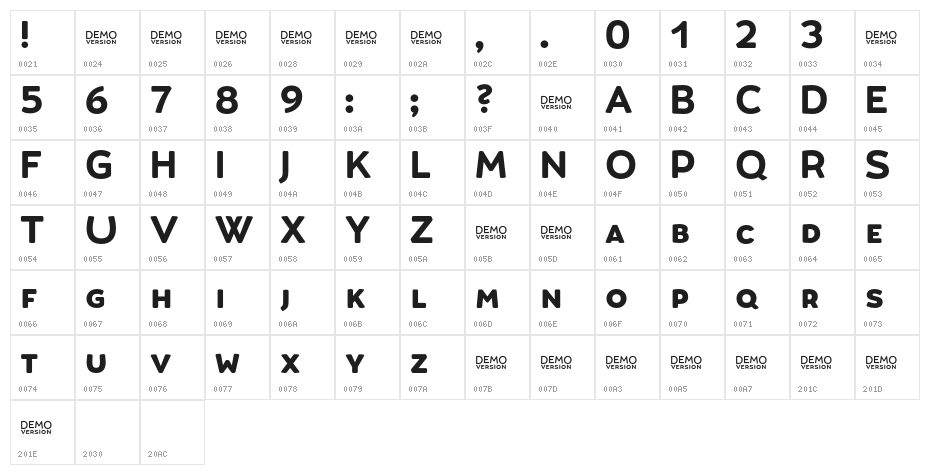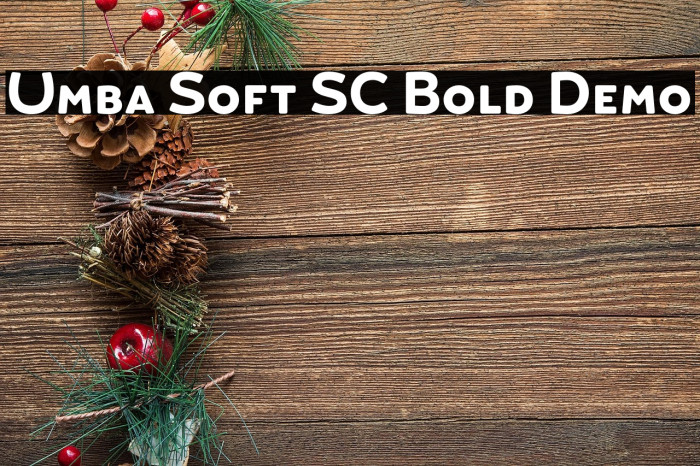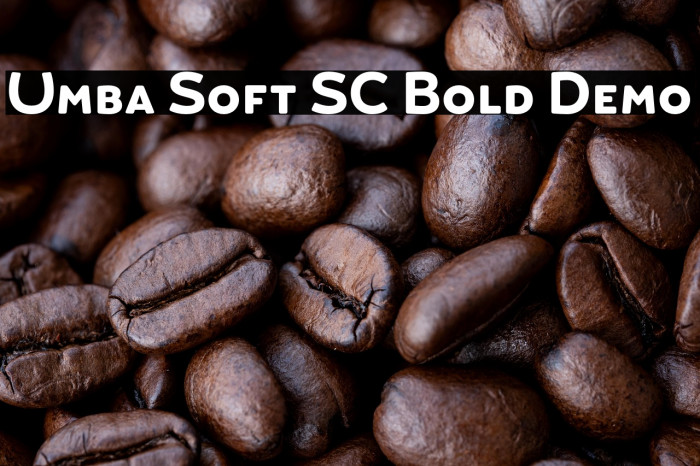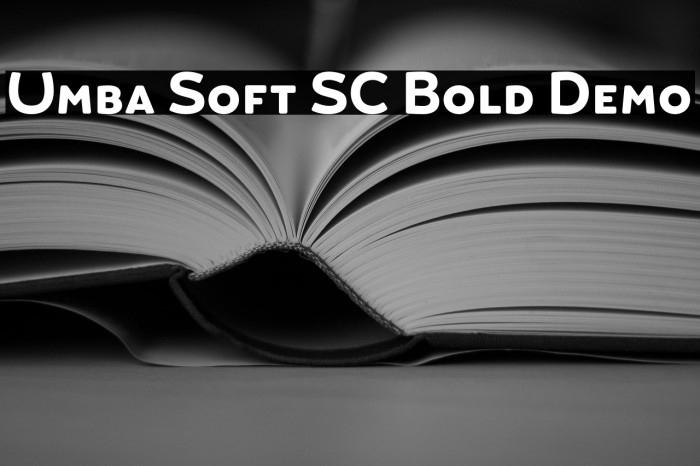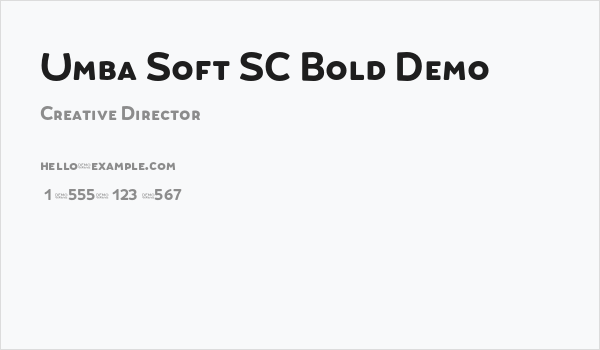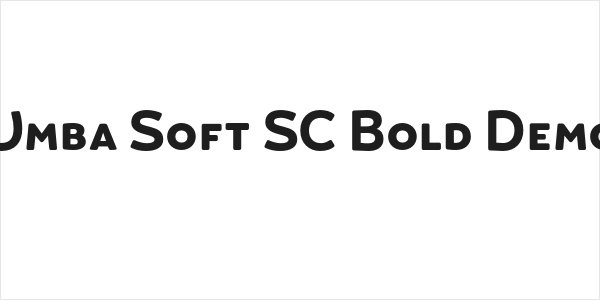
Umba Soft SC Bold Demo Font
Umba Soft SC Bold Demo Description
This font features a bold and rounded design, characterized by its smooth curves and uniform stroke width. The uppercase letters are prominent and well-defined, making them ideal for attention-grabbing headlines. The lowercase letters maintain a consistent style, complementing the uppercase with their rounded forms. The numerals are clear and easy to read, with a similar boldness that ensures visibility. Special characters are included, maintaining the same rounded and bold aesthetic. Overall, this font exudes a modern and friendly vibe, suitable for a variety of design projects.
| Proposed Projects | Ideal for branding, advertising, posters, and digital media where a bold statement is needed. |